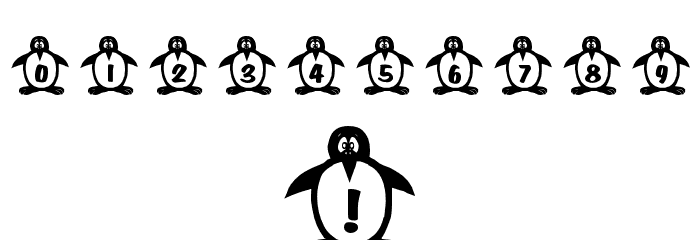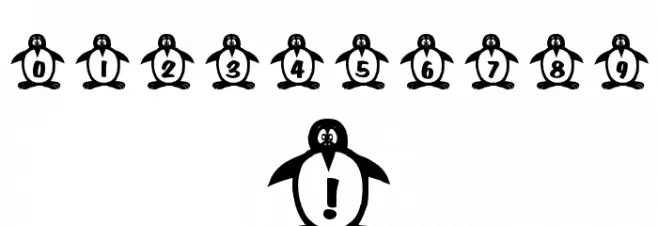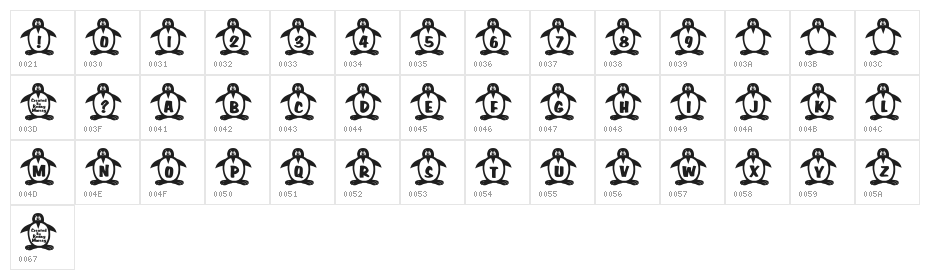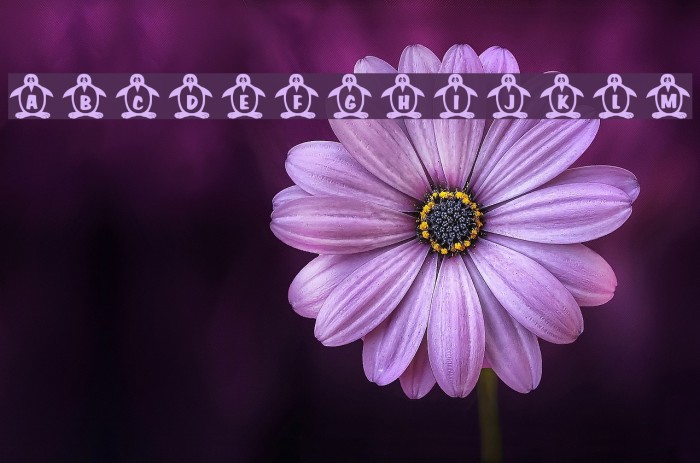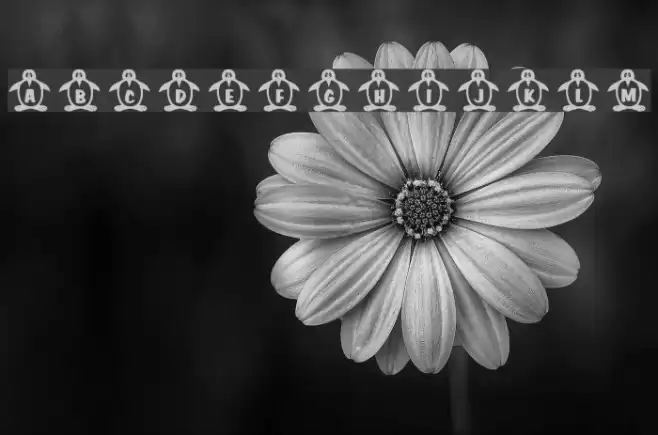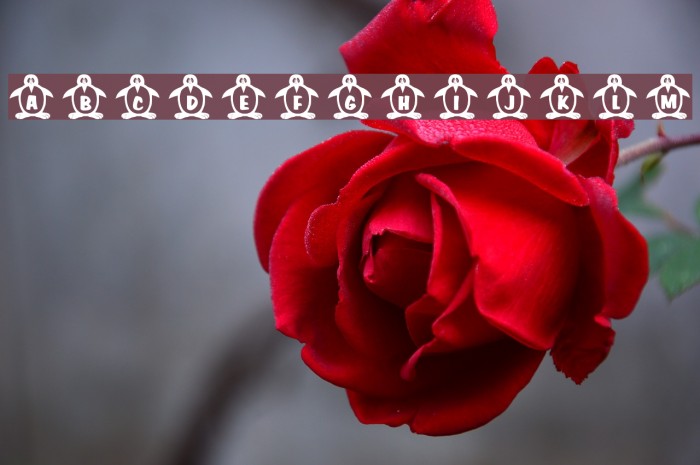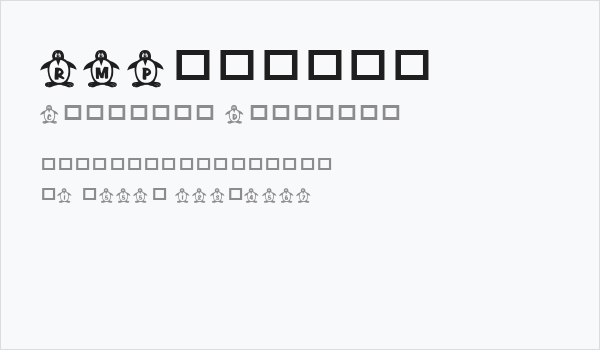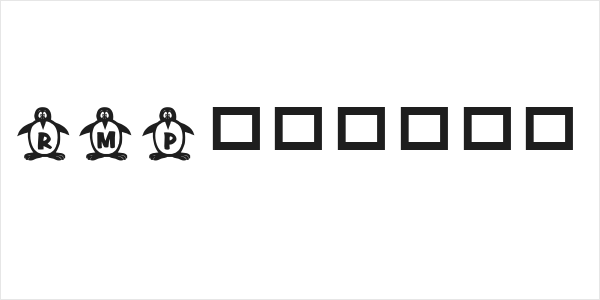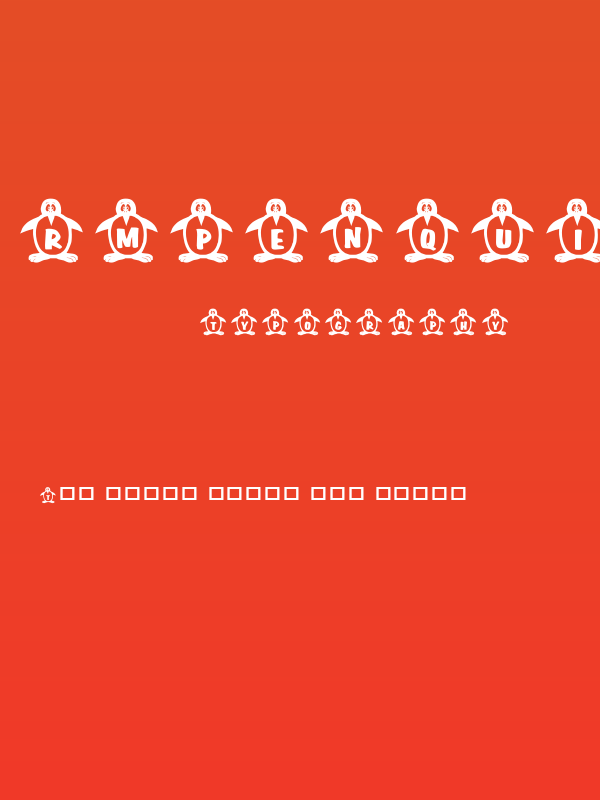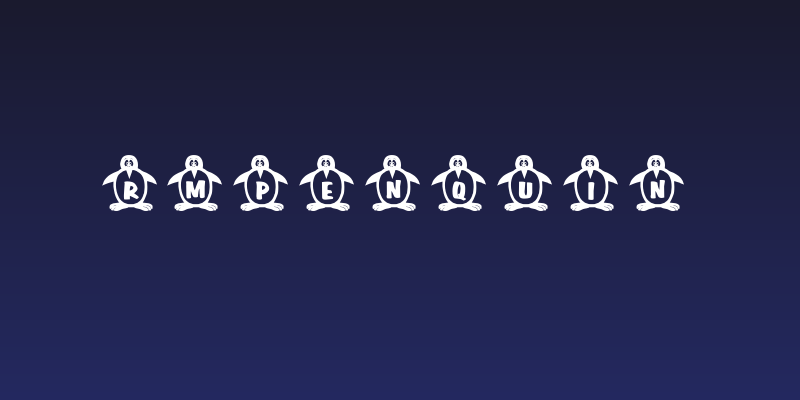
RMPenquin Font
RMPenquin Description
This playful and whimsical font features each character encased within a cartoon penguin silhouette, adding a unique and fun element to any design. The letters and numbers are bold and rounded, fitting snugly within the penguin's body, creating a cohesive and charming look. The font is highly decorative, making it ideal for projects that require a touch of humor and creativity. Its distinctive style is perfect for children's books, playful branding, or any project that aims to capture attention with a lighthearted and entertaining approach.
| Overall Style | Playful, Whimsical, Decorative |